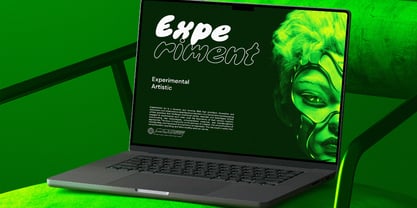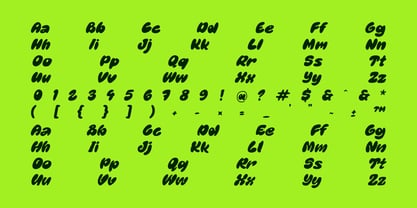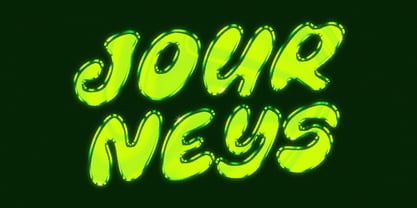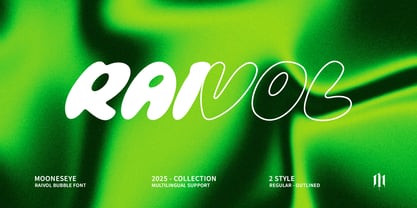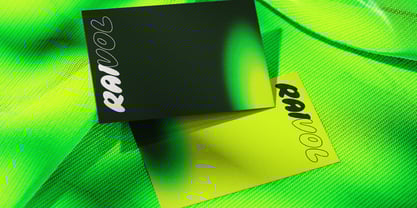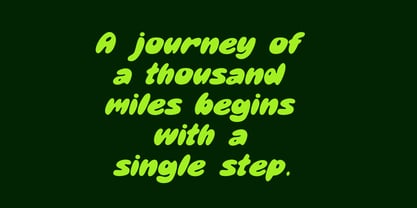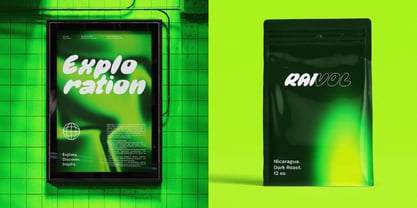
Raivol
by Mooneseye Studio
Raivol Display Font: Playful Bubble Typeface with a Modern Groovy Vibe
Meet Raivol Display Font, a distinctive and highly versatile typeface designed to inject instant fun and personality into your creative projects. With its bubbly, rounded letterforms and whimsical irregularities, Raivol stands out as a fresh take on retro-inspired typography. Perfect for designers seeking a quirky, playful font that's also remarkably impactful.
Raivol comes in two essential styles: Regular (filled) for a bold statement and Outlined for a lighter, more artistic touch – offering double the creative possibilities. Its bold strokes ensure excellent readability even at smaller sizes, making it ideal for everything from eye-catching headlines and memorable logos to engaging social media graphics.
Featuring over 350+ glyphs, including unique alternates, numbers, and punctuation, Raivol provides comprehensive functionality for a wide range of design needs. Whether you're crafting youthful branding, designing trendy packaging (coffee, snacks, beauty), creating vibrant merchandise (t-shirts, posters), or enhancing your digital marketing visuals (Instagram, TikTok), Raivol delivers a modern and trendy appeal that resonates with today's aesthetics.